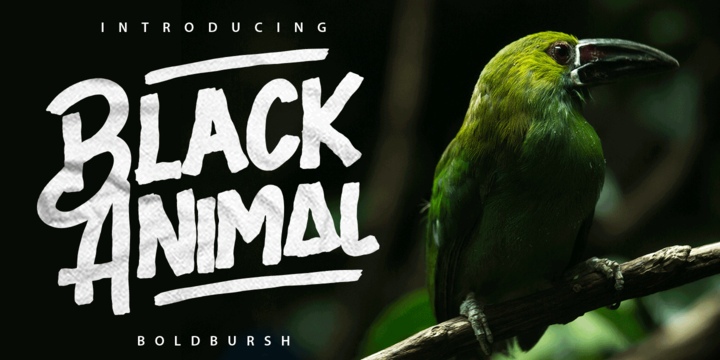
Black Animal Font
This bold typeface is perfect for wildlife conservation branding, zoo signage materials, safari tour marketing, animal rescue organization logos, nature documentary graphics, outdoor adventure gear packaging, wildlife photography studios, and environmental protection campaigns. Black Animal Font delivers untamed power in applications where wildlife authenticity and natural strength are essential for creating memorable brand experiences that celebrate the raw beauty and primal energy of the animal kingdom.
What makes Black Animal Font so exciting is its masterful embodiment of animal instinct and wild nature through commanding typography. The font features strong, organic letterforms with distinctive characteristics that suggest the power and grace of wild creatures. Each character has been thoughtfully designed to convey natural authority while maintaining excellent readability across various wildlife and outdoor applications. The typeface's untamed personality creates immediate associations with wilderness adventure and animal protection, making it perfect for organizations and brands committed to wildlife conservation and natural habitat preservation through their visual identity.
The Black Animal Font includes wild style variations: Regular, Bold, Condensed, and Textured versions. This wildlife collection allows designers to create dynamic layouts and establish powerful typographic treatments that capture the essence of animal strength and natural wilderness. Each style maintains the font's inherent wildness while providing different emphasis levels for various conservation applications and nature-focused design themes.
Whether you're developing wildlife organization identities, creating conservation marketing materials, or designing outdoor adventure campaigns, Black Animal Font Free Download provides the primal character that resonates with nature enthusiasts and wildlife advocates. Its powerful appeal makes it particularly suitable for wildlife sanctuaries, adventure tour companies, nature photographers, and environmental organizations. The font's commanding presence ensures maximum impact in both outdoor signage applications and conservation marketing materials, while its versatile design adapts beautifully to natural, rugged, and wilderness aesthetic approaches.
This powerful wildlife typeface represents the perfect solution for designers who understand the importance of natural authenticity in creating meaningful connections with conservation-minded audiences and outdoor adventure communities.